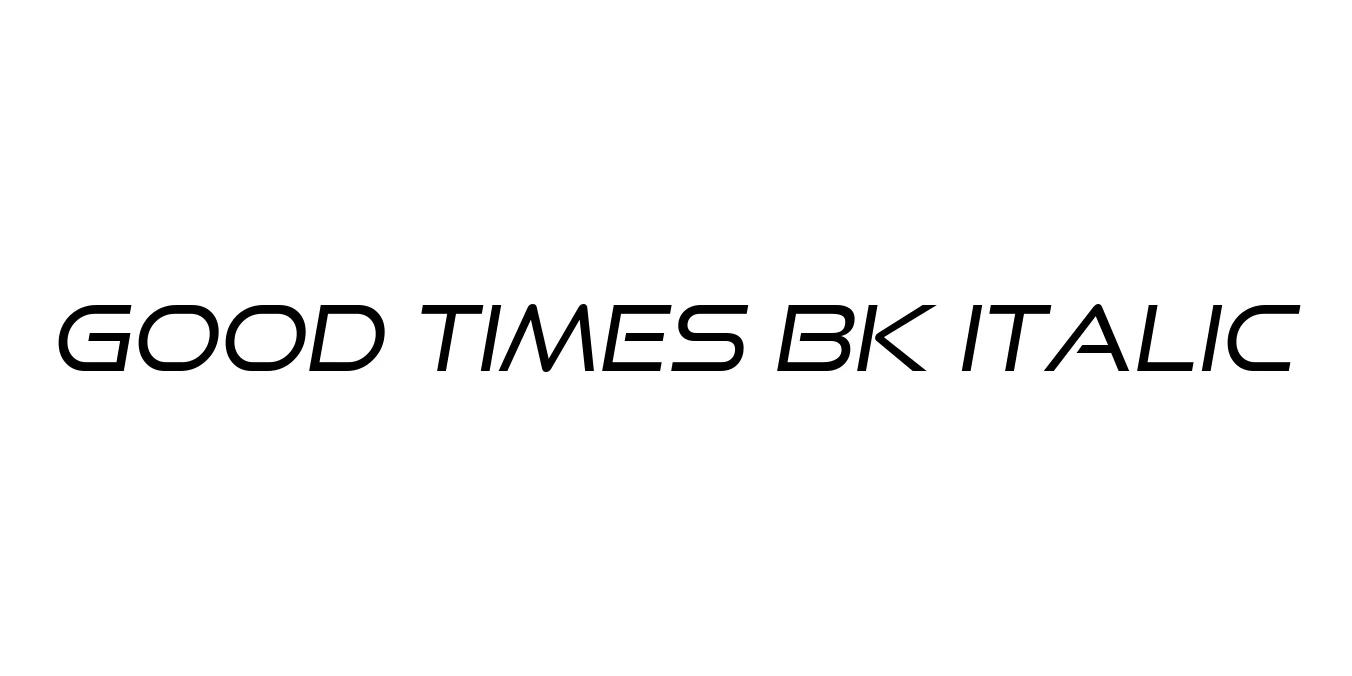
Good Times Bk Italic
Designed by Raymond Larabie
| Category | Techno / Sans Serif |
| Similar Fonts | Venus Rising, Neuropol, Nasalization, Michroma |
Good Times Bk Italic is a distinguished member of the expansive Good Times font family, crafted by the prolific type designer Raymond Larabie of Typodermic Fonts. This typeface is famously inspired by the lettering used in the 1980s Pontiac logo, embodying a sleek, retro-futuristic aesthetic that defined an era of automotive and technological optimism. The 'Bk' or Book weight provides a slightly lighter touch than the bold original, while the italicized slant adds a sense of speed, motion, and dynamic energy to the geometric forms.
The font features wide, square-like letterforms and a clean, sans-serif construction that makes it highly legible even in high-speed visual contexts. Its design is characterized by a lack of traditional serifs and a focus on mathematical precision, making it a staple for science fiction, gaming, and high-tech branding. Over the years, Good Times has become a go-to choice for designers looking to bridge the gap between vintage 1980s styling and contemporary digital clean-line aesthetics.
Good Times Bk Italic Best Uses
Perfect for user interfaces, HUDs, and title screens in sci-fi or racing games.
Excellent for tech startups, automotive companies, and modern hardware logos.
Great for impactful, wide-set titles on posters, website banners, and magazines.